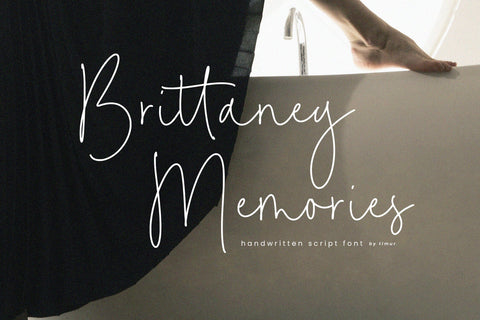
Brittaney Memories - Handwritten Script font
Proudly Present, Brittaney Memories
Brittaney Memories A Handwritten Script Font , which was created with great care and specially created for you
Brittaney Memories is perfect for product packaging, branding project, megazine, social media, wedding, or just used to express words above the background.